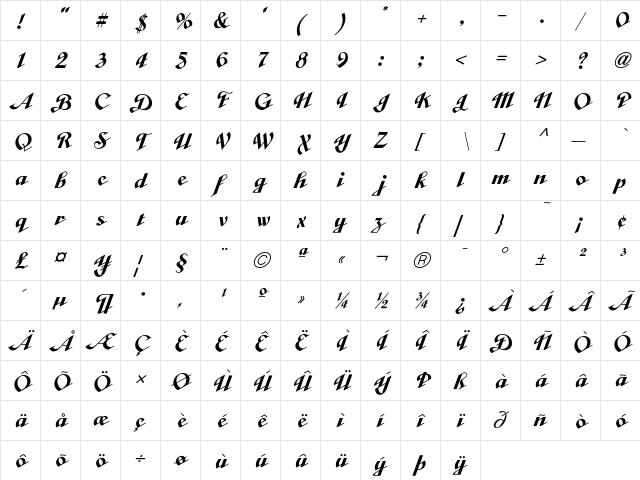
Cabarga CursivaICGSolid
Design Context for Cabarga Typeface
Cabarga flows with the natural rhythm of handwritten lettering, making it ideal for designs that call for warmth and personal expression.
Font Pairing: Combine Cabarga with a simple geometric sans for maximum contrast — the tension between flowing curves and clean structure is a classic typographic pairing.
Pro Tip: Pair Cabarga with a clean sans-serif for supporting text. The contrast between fluid script and geometric structure creates an elegant typographic hierarchy.